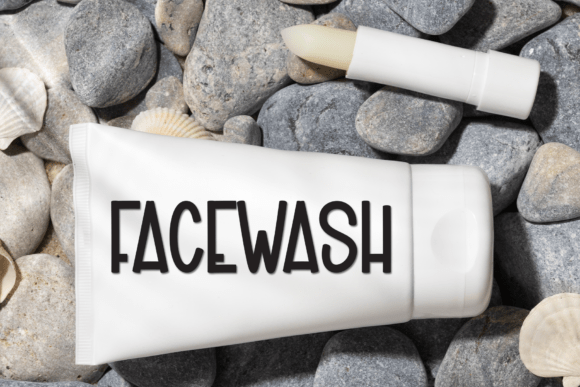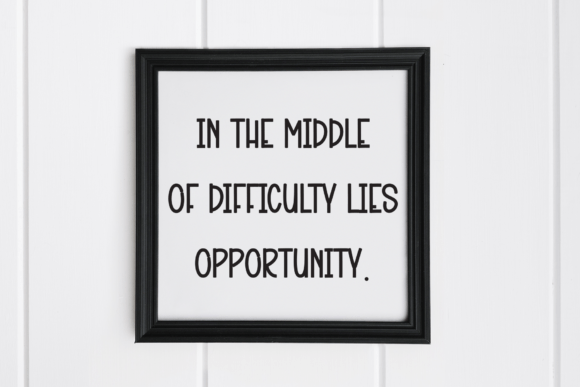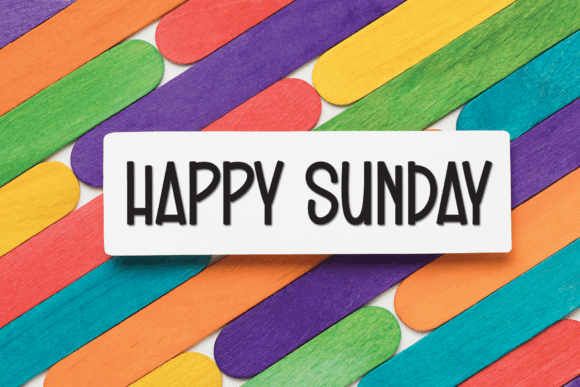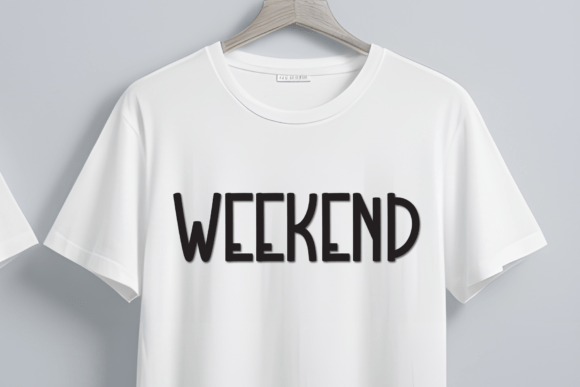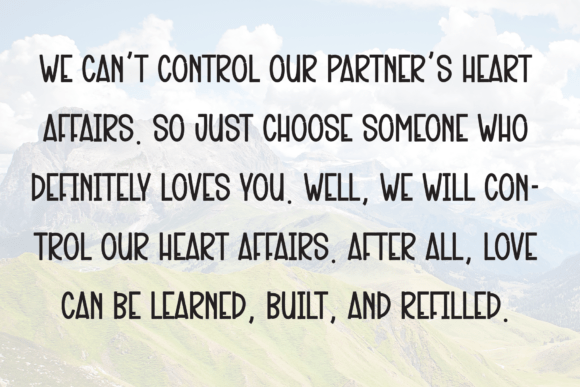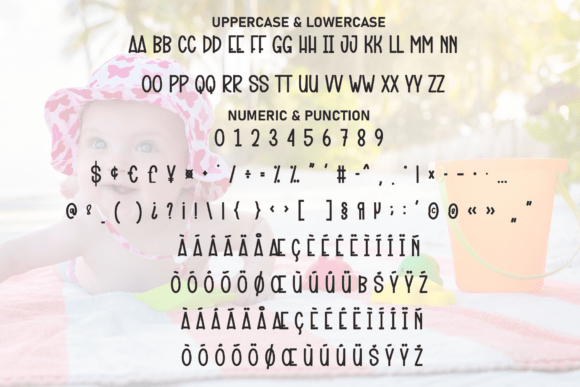
The Summer Vibes Font That’s Stealing My Heart: Baby Summer
I’ll never forget the design project that led me to discover Baby Summer. I was working on a branding campaign for a beachside cafe, and I was struggling to find the perfect font that captured the laid-back yet modern feel of the brand. That’s when I stumbled upon Baby Summer, and it instantly clicked. The clean lines, friendly letterforms, and balanced structure had me hooked. In this article, I’ll share my love for Baby Summer, its features, and how to make the most of it in your designs.
- ✅ Clarity and readability: Baby Summer’s clean lines and simple letterforms make it easy to read, even in smaller sizes.
- ✅ Modern yet laid-back vibe: This font strikes the perfect balance between modern style and a relaxed, approachable feel.
- ✅ Playful energy: Baby Summer brings a touch of personality to any project without overwhelming the message.
- ✅ Versatility: It’s perfect for headlines, posters, packaging, and branding projects.
- ⚠️ Limited use in formal contexts: Baby Summer’s casual nature makes it less suitable for formal or traditional designs.
- ⚠️ Glyph limitations: While it has a range of OpenType features, it may not have as many glyphs as some other fonts.
- Experiment with OpenType features like Stylistic Alternates to add some personality to your text.
The Story Behind Baby Summer
Baby Summer was designed with the intention of creating a font that captures the carefree spirit of summer. The designer aimed to create a clean and modern font that’s perfect for designs that need a touch of personality. With its balanced structure and playful energy, Baby Summer is sure to bring a smile to your face.
Q: What makes Baby Summer suitable for branding projects?
A: Baby Summer’s clean lines, friendly letterforms, and balanced structure make it perfect for branding projects that need a modern yet laid-back feel.
Q: Can I use Baby Summer for body text?
A: While Baby Summer is highly legible, it’s best suited for headlines and titles. For body text, you may want to choose a font with more traditional proportions.
Q: Does Baby Summer support OpenType features?
A: Yes, Baby Summer supports OpenType features like Stylistic Alternates, Swashes, and Stylistic Sets, which can add personality to your text.
Q: Is Baby Summer suitable for digital designs?
A: Absolutely! Baby Summer’s clean lines and simple letterforms make it perfect for digital designs, from social media graphics to website headers.